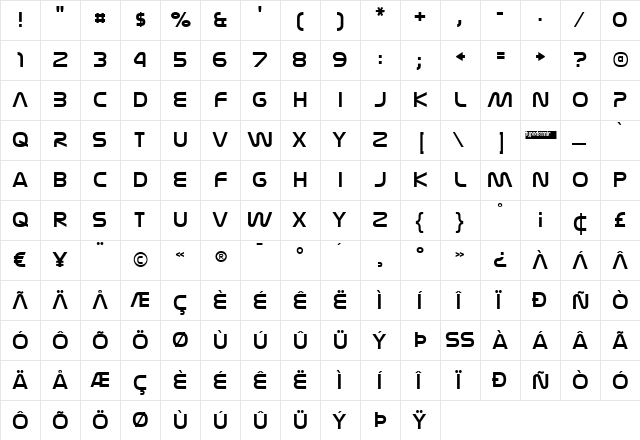
Nasalization Free Regular
Design Context for Nasalization Free Typeface
Nasalization Free is a composed and adaptable typeface that performs quietly and consistently across a wide range of design contexts.